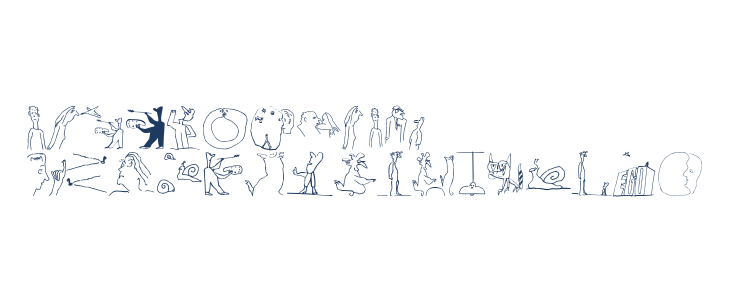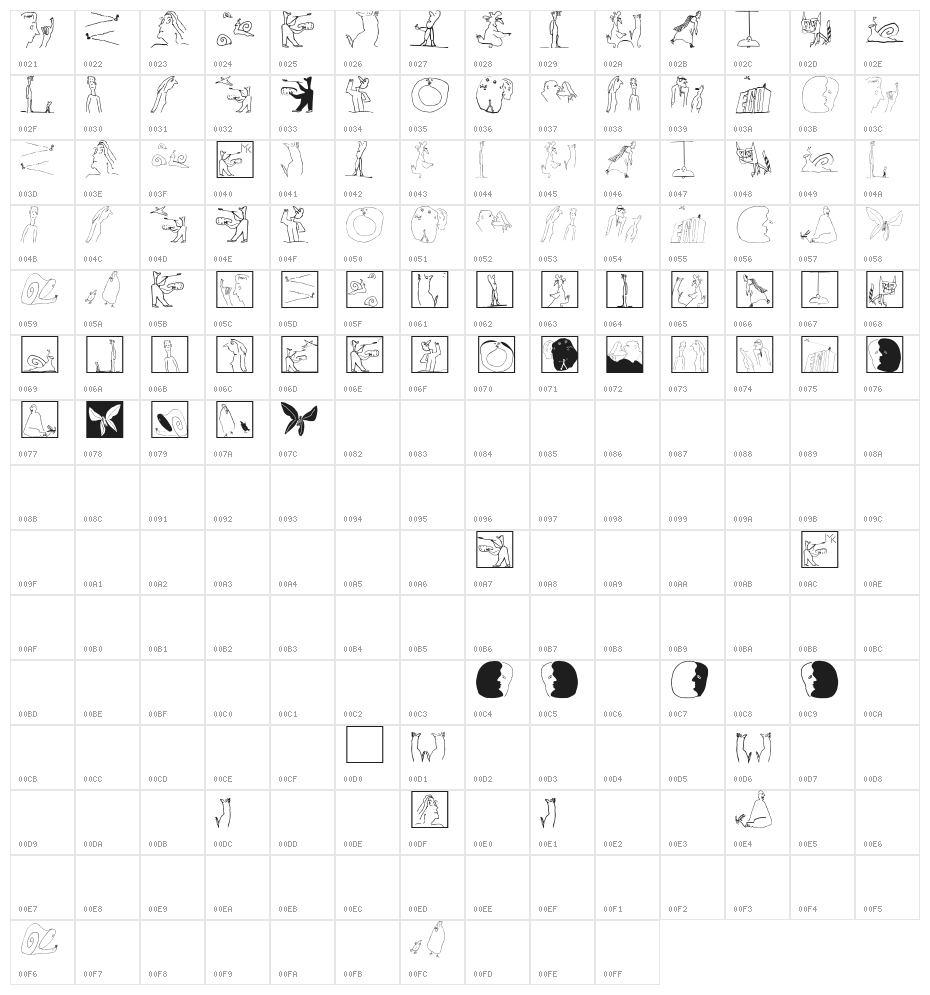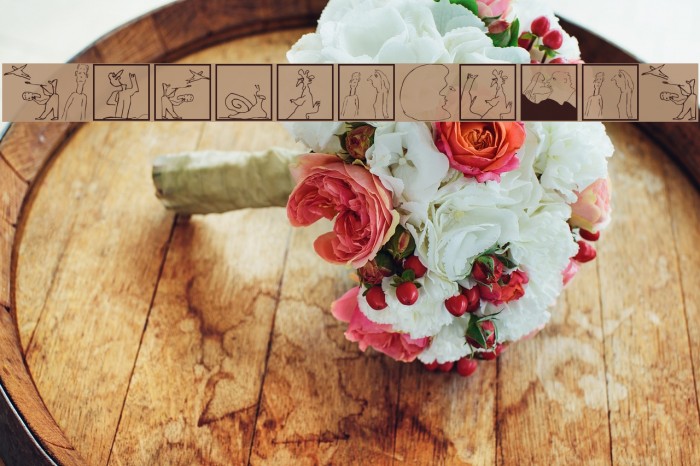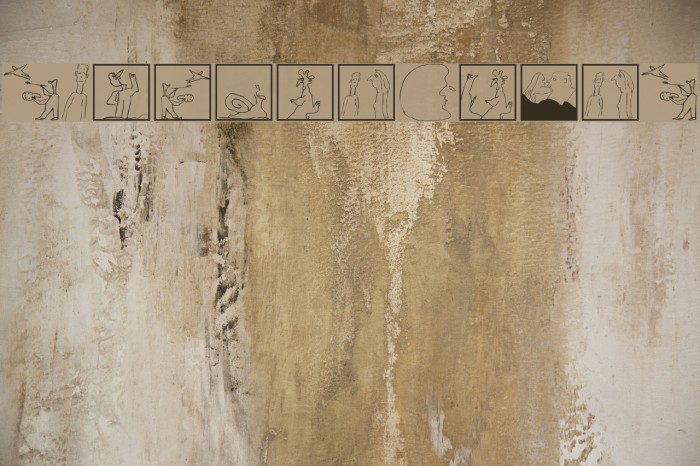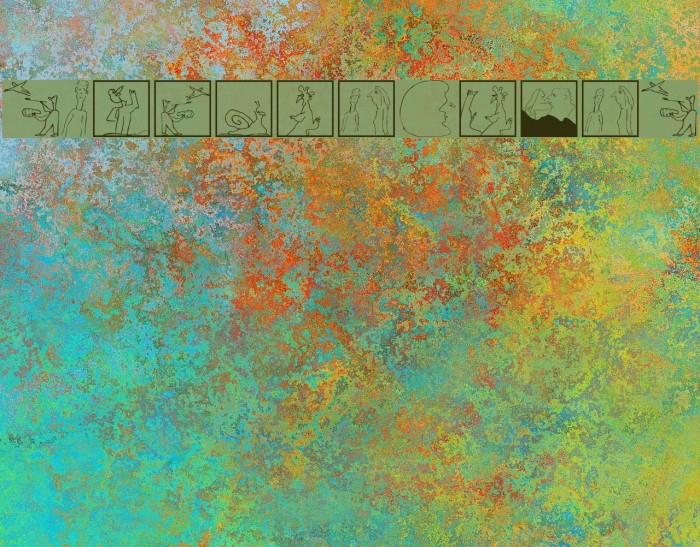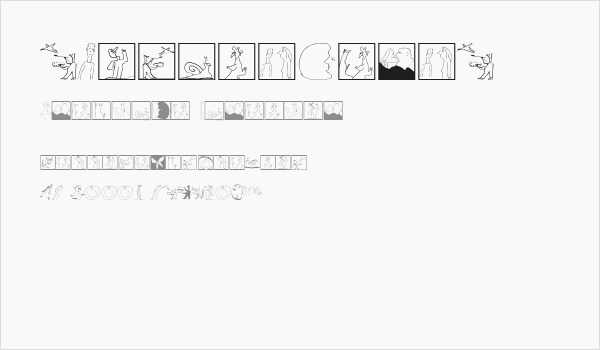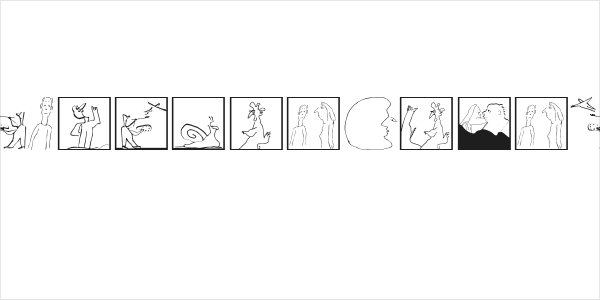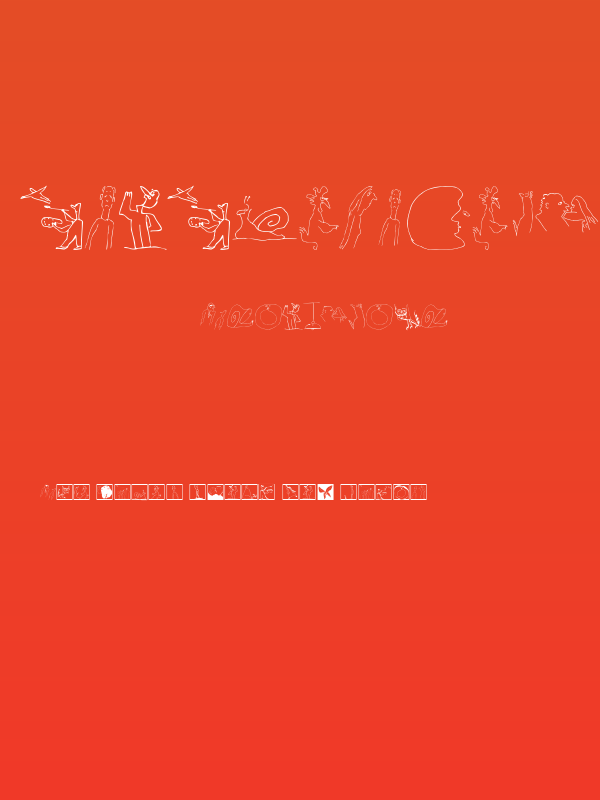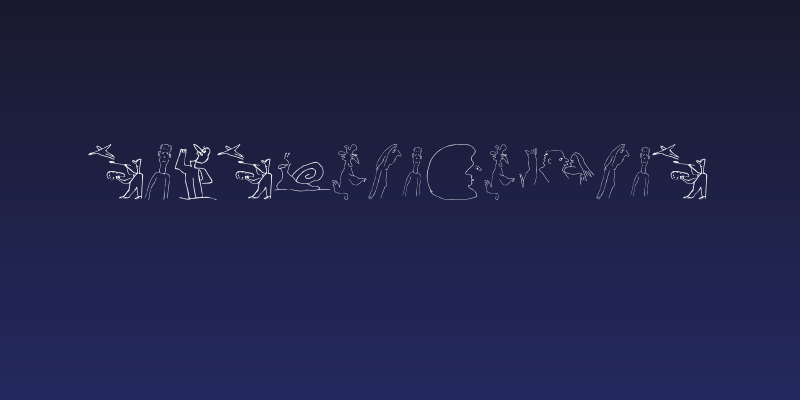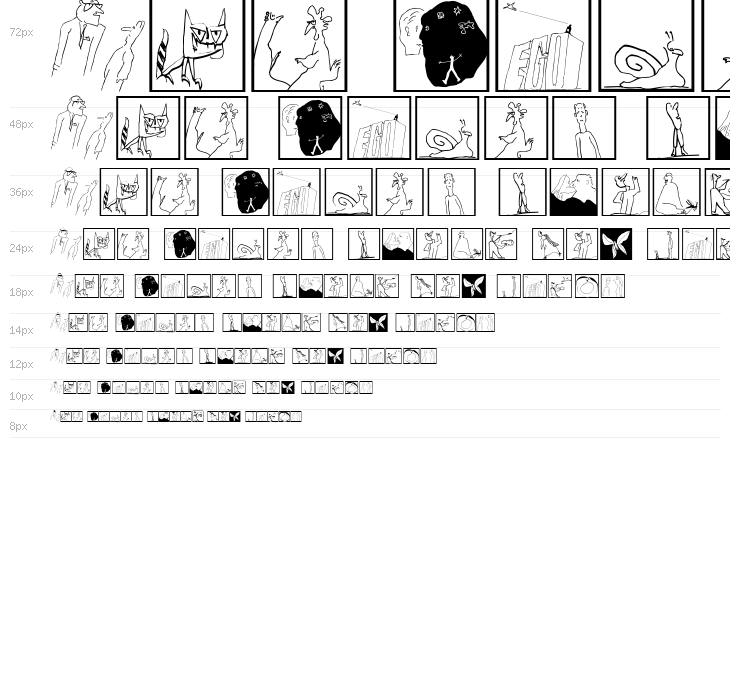
MKomicsVers2 Font
MKomicsVers2 Description
This font is a whimsical and artistic collection of characters, each uniquely illustrated with a playful and imaginative style. The characters are not traditional letters but rather creative drawings that resemble various objects, animals, and abstract forms. Each character is distinct, with intricate line work and a sense of humor and creativity. The font is highly decorative, making it suitable for projects that require a unique and artistic touch. The overall design is unconventional, breaking away from traditional typography to offer something truly unique and visually engaging.
| Use Case | Logos, Artistic projects, Posters |
| Proposed Projects | Ideal for creative projects such as comic books, artistic posters, unique branding, and any design work that benefits from a playful and imaginative touch. |